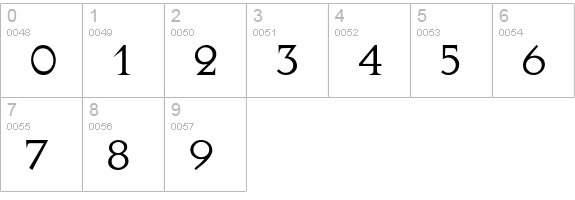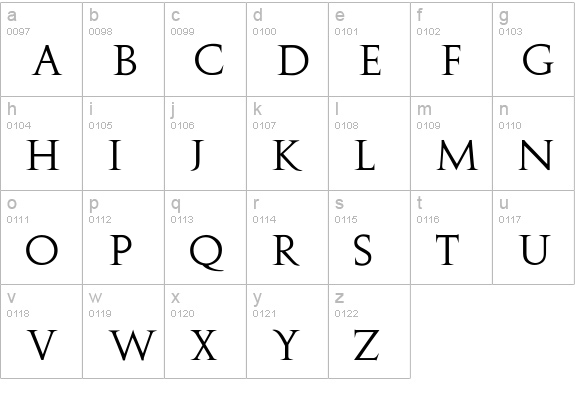
Augustus Font Details
The Augustus font is a modern and stylish typeface that exudes elegance and sophistication. With its clean lines and sleek design, this font is perfect for a wide range of design projects, from branding to editorial work. The versatility of Augustus makes it a great choice for both print and digital applications, adding a touch of class to any project. Best of all, the Augustus font is available for free download at FontsMarket.com. Whether you're a designer looking to add a new font to your collection or a hobbyist looking to spice up your creative projects, Augustus is the perfect choice. Don't miss out on this incredible opportunity to enhance your designs with this stunning font - download Augustus today for free and elevate your work to the next level.